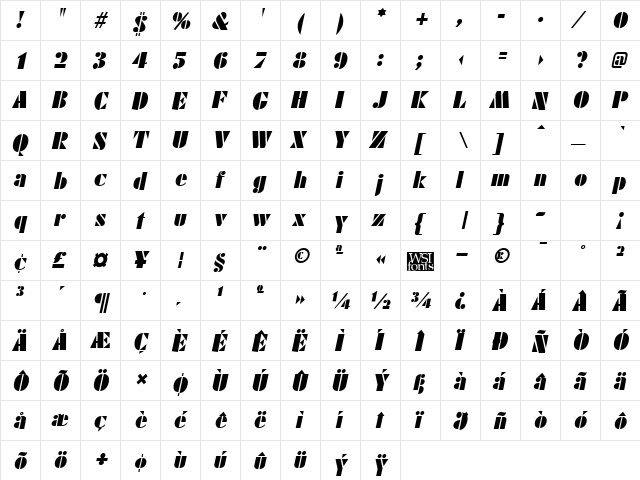
FuturistBlack Italic
Design Context for FuturistBlack Typeface
FuturistBlack channels digital-age aesthetics through its sharp, structured letterforms — ideal for brands that want to signal innovation. The slanted form adds forward momentum and visual energy.
Pro Tip: Use FuturistBlack in combination with a neutral sans for body text. Let it define the brand voice in headlines while keeping reading comfortable elsewhere.